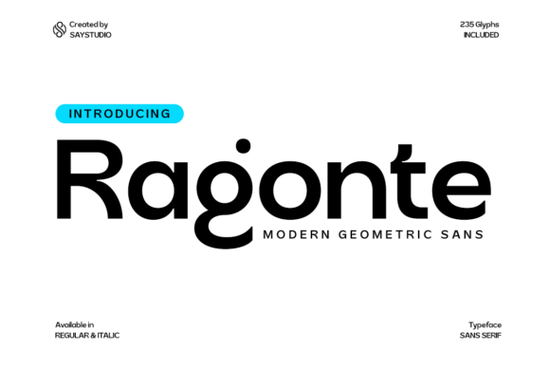
If you're looking for a clean, modern sans serif font that feels both tech-forward and easy to use especially for logos, social media graphics, or branding mockups Ragonte Font is worth your attention. It’s not overly complex or experimental, but thoughtfully designed with balanced curves, strong geometry, and consistent spacing. That makes it especially helpful if you’re building a visual identity for a small tech startup, designing merch for an esports team, or putting together sci-fi-themed printables for your shop.
What kind of projects does Ragonte work well for?
Ragonte shines where clarity and contemporary style matter most. Think: app UI mockups, gaming logo concepts, automotive brochure headers, or even minimalist product labels. Because it’s a geometric sans serif, it reads cleanly at larger sizes ideal for posters, banners, or Instagram story text overlays. It’s also subtle enough for corporate branding without feeling cold or robotic.
Designers who’ve used it report success pairing it with softer, more organic fonts for contrast like Savora for body text in a presentation deck, or Life Planner Duo for planner templates where Ragonte handles section titles.
How does it compare to other modern sans serifs?
Unlike some ultra-thin or high-contrast digital fonts, Ragonte keeps its weight distribution even and legible across devices. It doesn’t rely on trendy quirks it’s built for function first. That’s why it fits naturally alongside other versatile options like Amavera, which offers a slightly warmer, rounded alternative for friendlier branding, or the broader selection in our Modern Sans Serif Bundles if you want variety for different client needs.
You’ll find multilingual support (including Latin Extended-A), full punctuation, numerals, and stylistic alternates so you can swap in a cleaner ‘a’ or a more open ‘g’ depending on layout needs. No extra plugins or OTF setup required; it works in Canva, Illustrator, Photoshop, and most design tools right away.
Who’s using Ragonte and why does it fit their workflow?
Small business owners building Shopify store banners appreciate how quickly Ragonte conveys “innovative but trustworthy.” Print-on-demand sellers use it for limited-run tech apparel because it scales well on screen-printed tees and stickers. Crafters making digital planners or Notion templates choose it for section headers that stand out without overwhelming the page.
One user shared how they paired Ragonte with neutral grays and electric blue accents for a drone startup’s pitch deck no custom illustrations needed, just smart typography doing the heavy lifting. Another used it for vinyl decal designs targeting STEM educators, finding it readable even when cut small on classroom supplies.
Is Ragonte beginner-friendly?
Yes if you’ve used any basic sans serif before (like Helvetica or Inter), you’ll feel comfortable with Ragonte. There’s no steep learning curve. The stylistic alternates are optional, not required, and the default character set covers most everyday uses. You won’t need advanced OpenType knowledge to get good results.
That said, it’s not meant for long-form body text. Stick to headlines, logos, short quotes, or interface labels. For longer copy, pair it with something more relaxed like Savora or even a classic system font.
For deeper context on how geometric sans serifs evolved in digital design, you might explore resources like Ragonte Font’s design notes or typography history articles from trusted design educators.
Before downloading or licensing Ragonte, ask yourself:
- Do I need strong, clean headlines not body text for this project?
- Will my audience associate this style with innovation, precision, or modernity?
- Do I already have a complementary font for smaller text or captions?
If you answered “yes” to the first two, and “I’ll double-check the rest,” Ragonte is likely a solid match. Try it alongside the full Ragonte family page to see samples, alternate glyphs, and real-world examples from other designers.